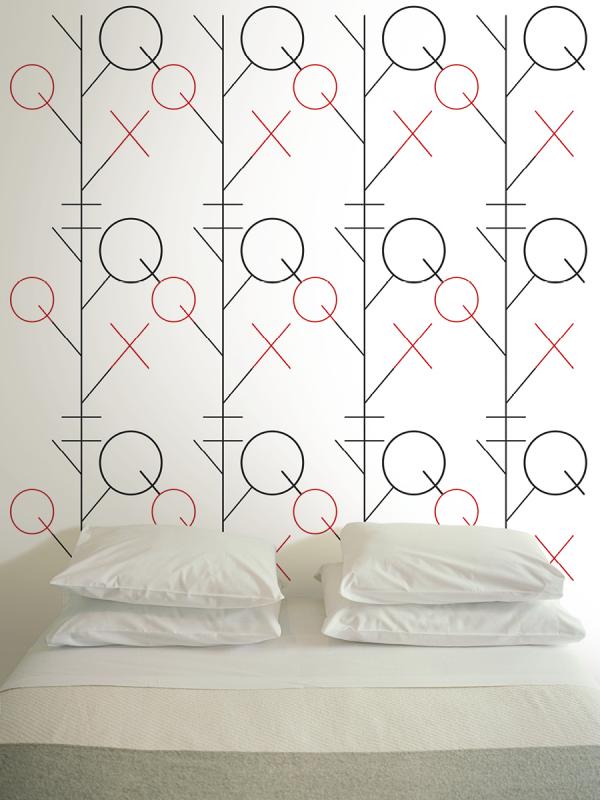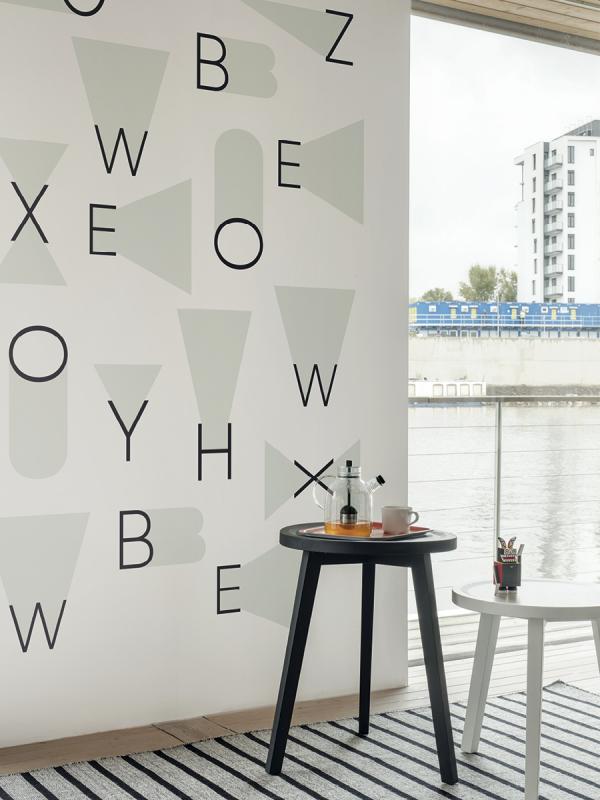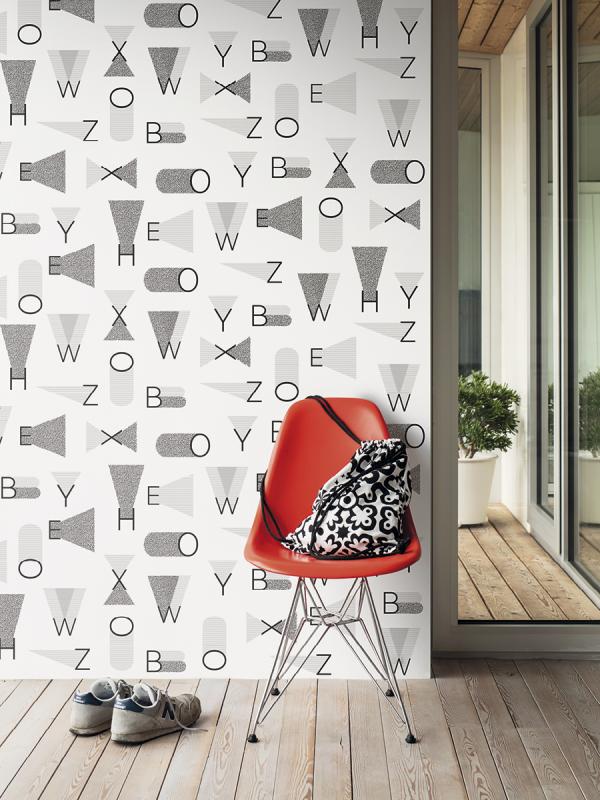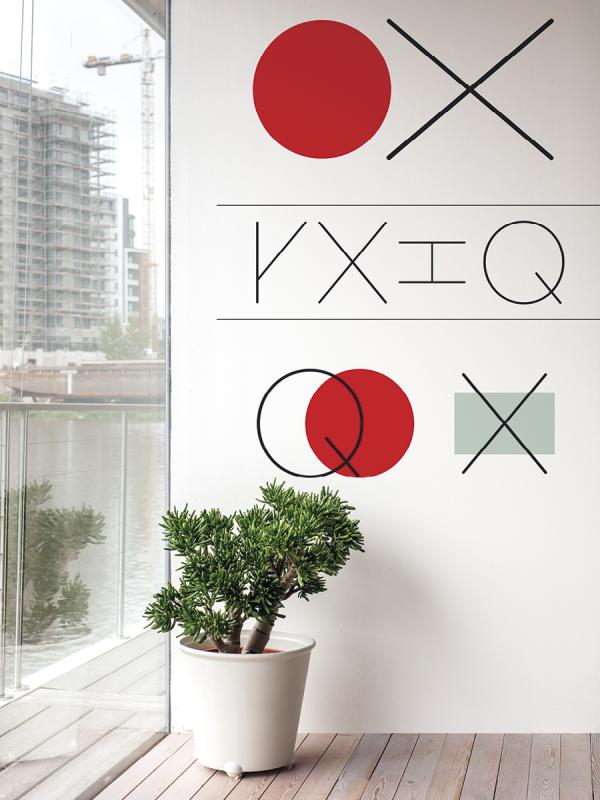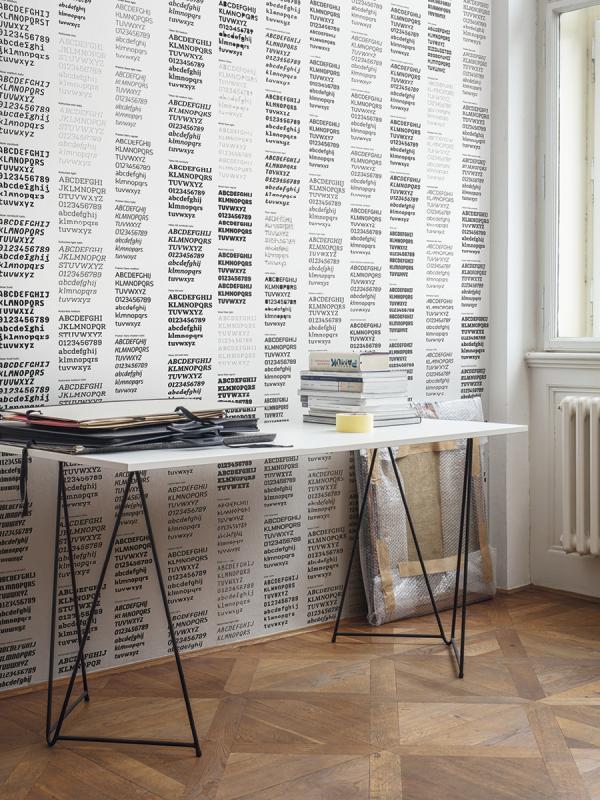
Unique cooperation: Lavmi brings our typefaces on your walls!
Lavmi is a live intersection of art and commerce. It is a brand that sets the trends in interior design. Lavmi is a synonym for wallpaper. And of course Lavmi loves typefaces!
So we were logically really curious how they can treat our typefaces — and the result is fresh as spring itself! Babeta Ondrová used our typefaces for creating set of five wonderful pictorial and typographic wallpapers, that loves to be used in your home or studio. All the patterns consist of powerful graphic design, combined with a refined colours. You can decide whether you put on your wall a single glyphs or the entire type foundry set. Lavmi philosophy is to bring style into your homes – style that is well aware of its primary function.
Alphapipe mural wallpaper with Alphapipe typeface (Briefcase Type Foundry).
Echo large mural wallpaper with Urban Grotesk (Suitcase Type Foundry).
Echo mural wallpaper with Urban Grotesk (Suitcase Type Foundry).
Skice mural wallpaper with Alphapipe typeface (Briefcase Type Foundry).
Type Foundry mural wallpaper (Suitcase & Briefcase Type Foundry).